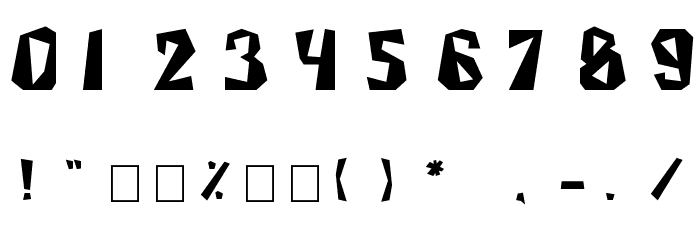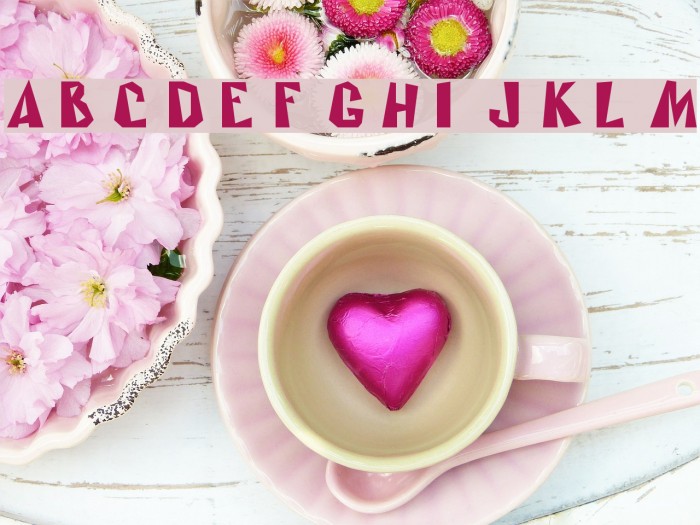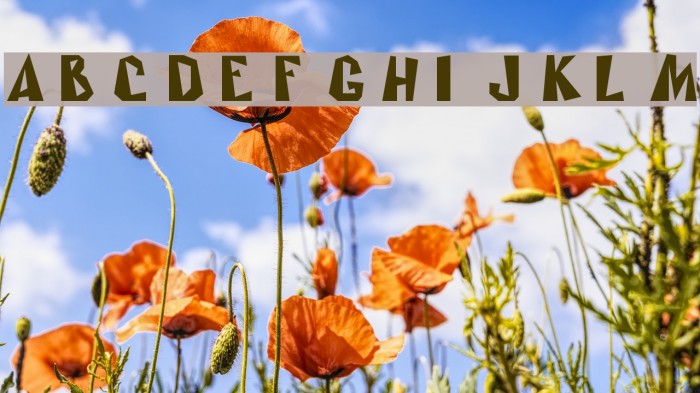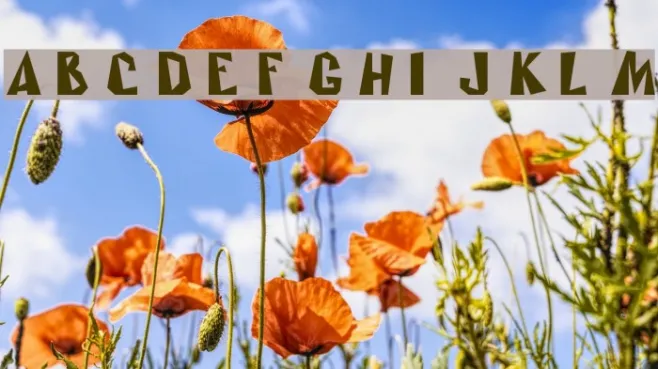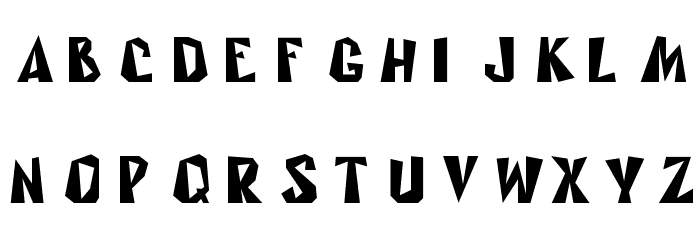
Rublik Font
This font features a bold and angular design, characterized by its sharp, geometric shapes and distinct edges. Each letterform appears to be crafted from a series of angular cuts, giving it a dynamic and edgy appearance. The uppercase and lowercase letters maintain a consistent style, with a slightly condensed form that enhances its boldness. Numbers and special characters follow the same angular theme, ensuring uniformity across all glyphs. This font's unique style makes it stand out, perfect for projects that require a modern and unconventional look.
A bold, angular font with sharp geometric shapes.
• Proposed Projects: Ideal for modern branding, edgy posters, album covers, and digital artwork.
• Category: Decorative/Display
• Bold: Yes
• Italic: No
• Weight: Bold
• Width: Condensed
• Character Spacing: Normal
• Contrast: High
• Overall Style: Modern
• Use Case: Headlines, Logos, Posters